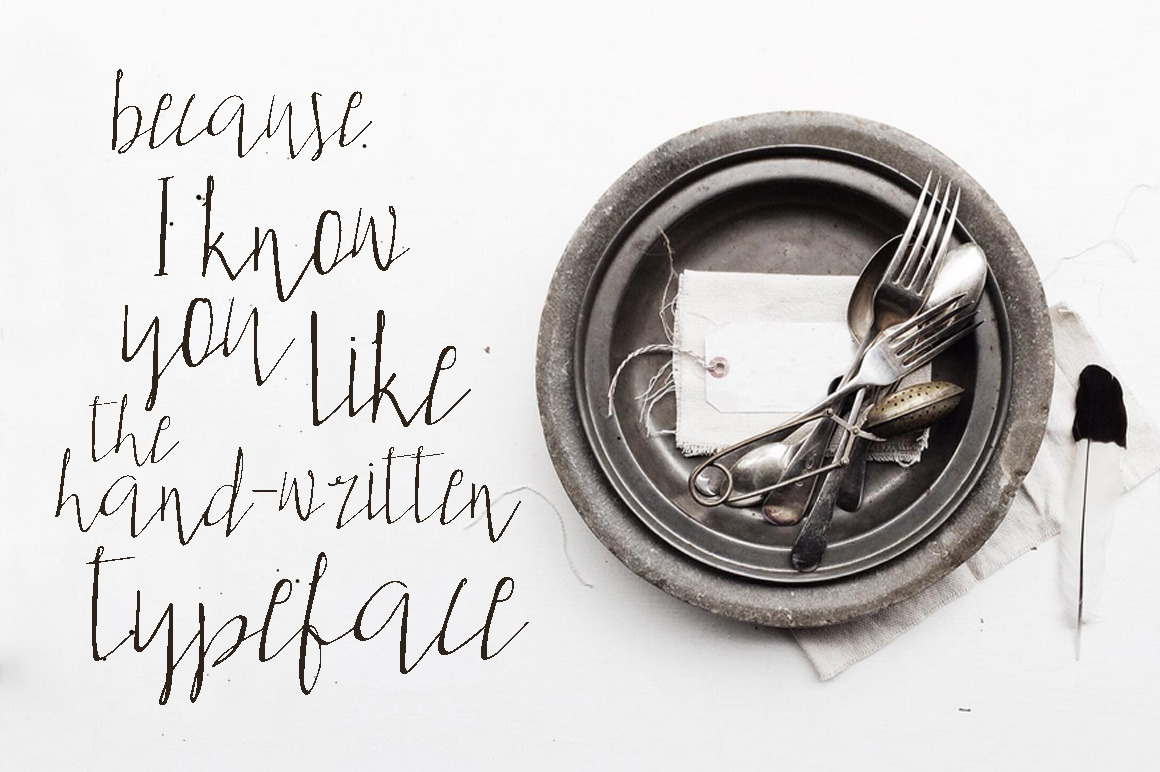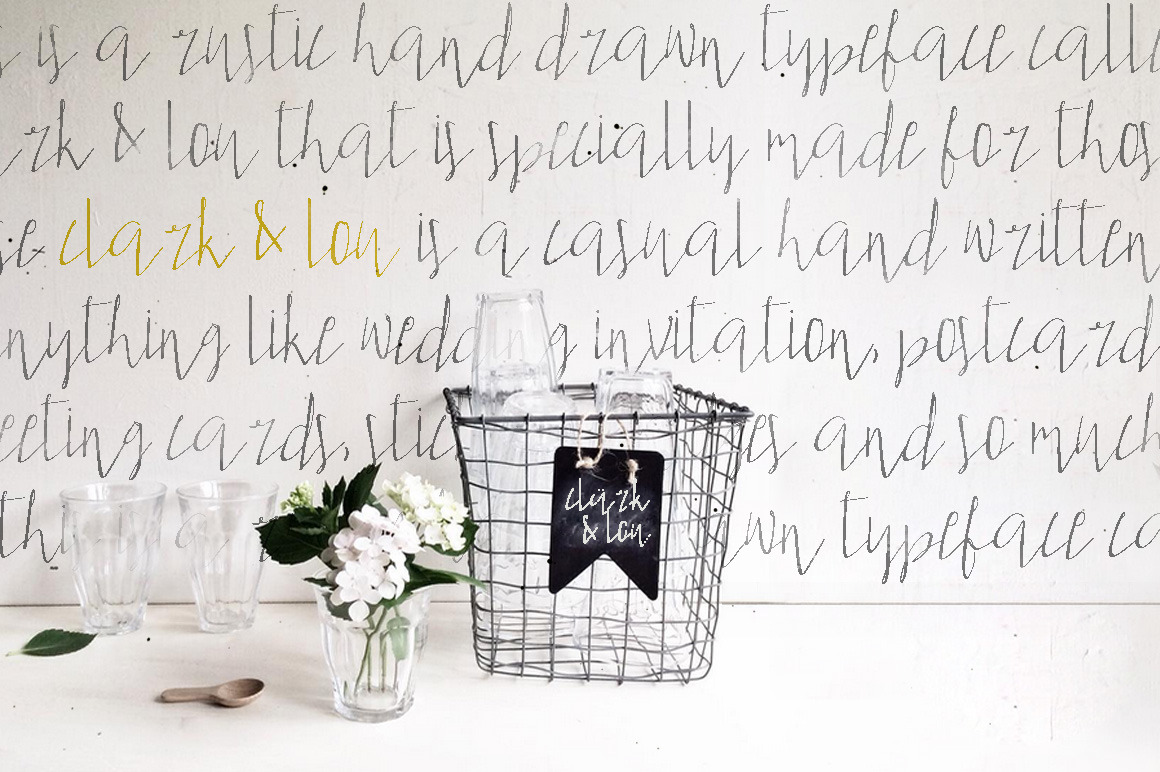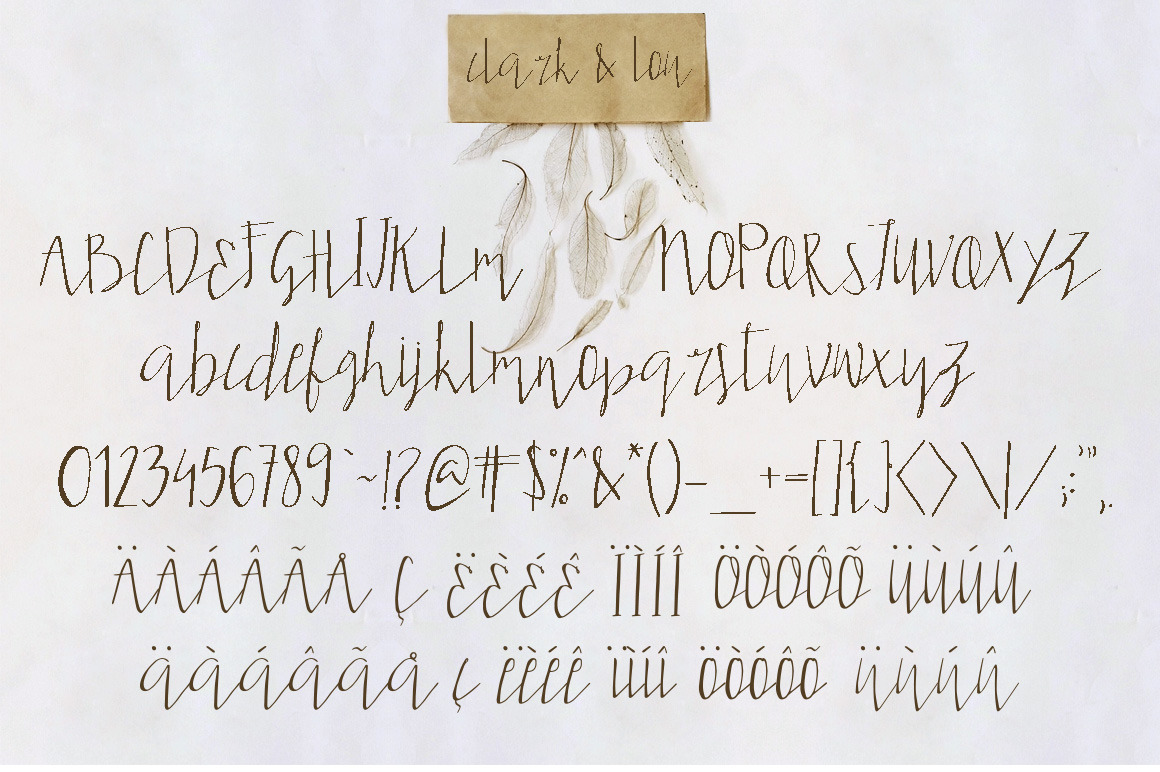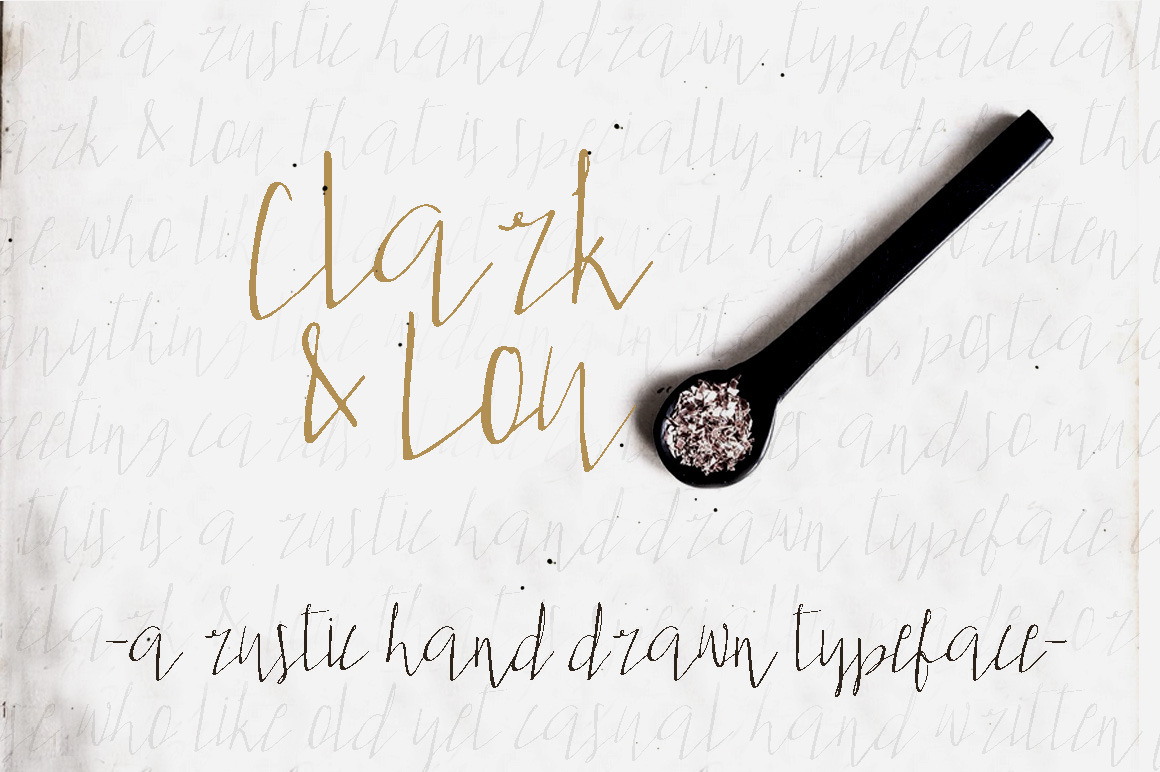
Clark & Lou Script Font
Clark & Lou Script Font is perfect for vintage wedding invitations, artisanal branding, boutique coffee shops, handcrafted product labels, rustic restaurant signage, nostalgic greeting cards, heritage brand logos, craft brewery marketing, organic food packaging, and authentic lifestyle branding.
What makes Clark & Lou Script Font so exciting is its authentic handcrafted character that captures the essence of traditional hand-lettering with genuine personality and warmth. This charming script typeface combines artisanal craftsmanship with contemporary usability, creating typography that tells stories and builds emotional connections.
The Clark & Lou Script Font family includes regular and bold weights, featuring natural letter variations, contextual ligatures, stylistic alternates, and decorative flourishes that perfectly replicate the organic flow of authentic hand-lettered signage and vintage typography.
Discover authentic charm with Clark & Lou Script Font, a beautifully crafted script typeface that brings genuine artisanal character to modern design projects. This exceptional font embodies the spirit of traditional craftsmanship while delivering the technical precision required for contemporary professional applications.
The naturally flowing letterforms of Clark & Lou Script Font showcase the imperfect beauty of hand-lettered artistry, with subtle variations and organic connections that create authentic personality in every word. Each character displays careful attention to the nuances of traditional sign painting and calligraphy, ensuring that the font maintains its handcrafted appeal while providing consistent readability across all sizes and applications.
Artisanal brands and heritage-focused designers consistently choose Clark & Lou Script Font for projects requiring authentic character and nostalgic appeal. The comprehensive character set includes uppercase and lowercase letters, numerals, extensive punctuation, vintage-inspired alternates, and decorative elements that enable designers to create compositions with genuine artisanal authenticity.
The timeless appeal of Clark & Lou Script Font makes it equally effective in traditional print applications and modern digital environments. Whether developing craft brand identities, creating vintage-inspired packaging, or designing nostalgic marketing materials, this remarkable typeface delivers consistent authenticity that resonates with audiences seeking genuine craftsmanship.
Experience the beauty of handcrafted typography with Clark & Lou Script Font. This extraordinary script typeface transforms digital text into authentic artisanal expression, making it the perfect choice for designers who value the timeless appeal of traditional craftsmanship.